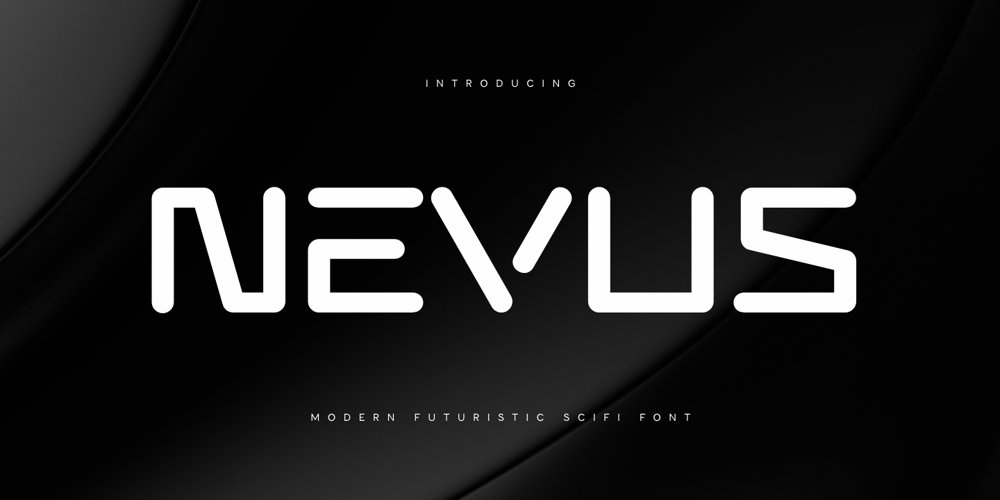
Nevus Font Family was designed by Zamroni Hamzah and published by Sensatype Studio. Nevus contains 1 styles and family package options. Introducing NEVUS, the ultimate futuristic font designed for sci-fi and technology-themed projects. NEVUS combines sleek lines and modern aesthetics to deliver a cutting-edge look that enhances any design.NEVUS Font Features: Futuristic Glyphs: Unique characters that evoke a modern, tech-forward vibe. Sci-fi Accents: Distinctive elements inspired by space and futuristic themes. Smooth Curves: Sleek and smooth letterforms for a polished look. Extended Character Set: Supports multiple languages and symbols. High Legibility: Clear and readable, perfect for both headlines and body text. Web-friendly Formats: Optimized for web use Professional Kerning: Precisely adjusted spacing for a professional finish. Elevate your designs with NEVUS, the font that embodies the essence of futuristic and technological innovation. Whether for branding, digital media, or creative projects, NEVUS adds a sleek and sophisticated touch to your work. Embrace the future with NEVUS and transform your designs today.